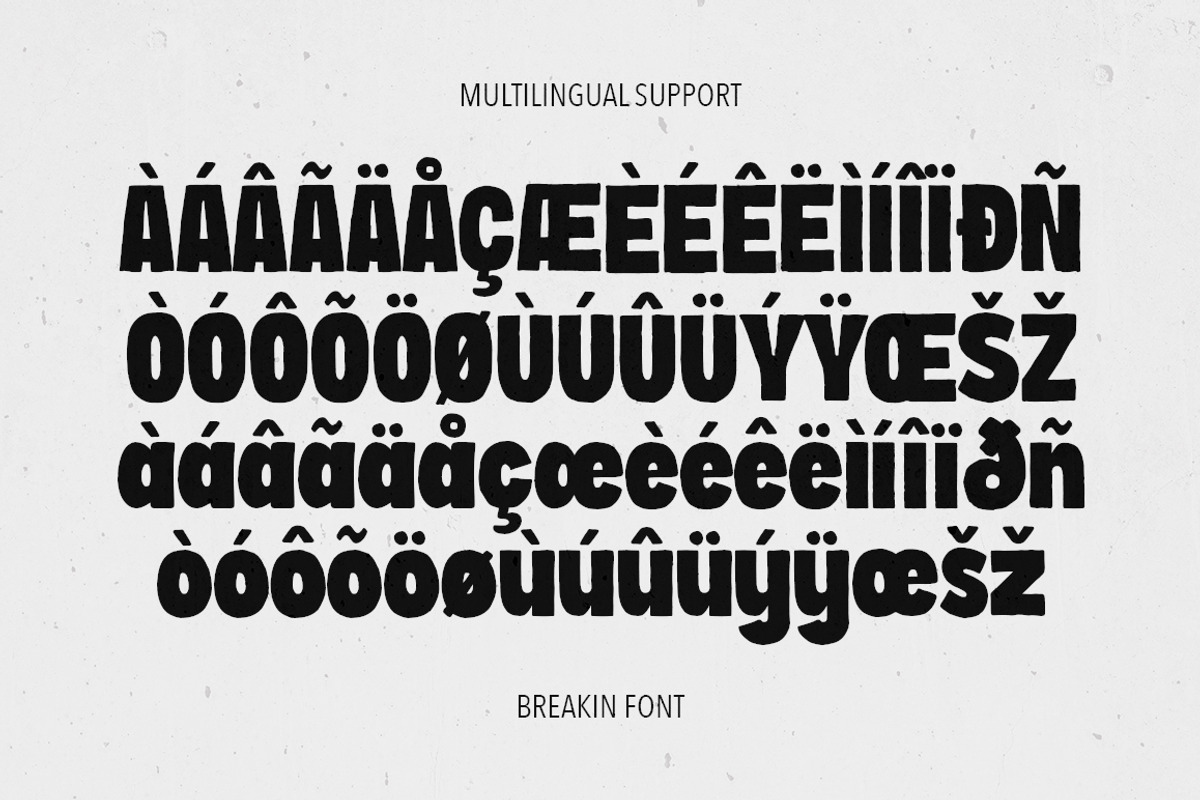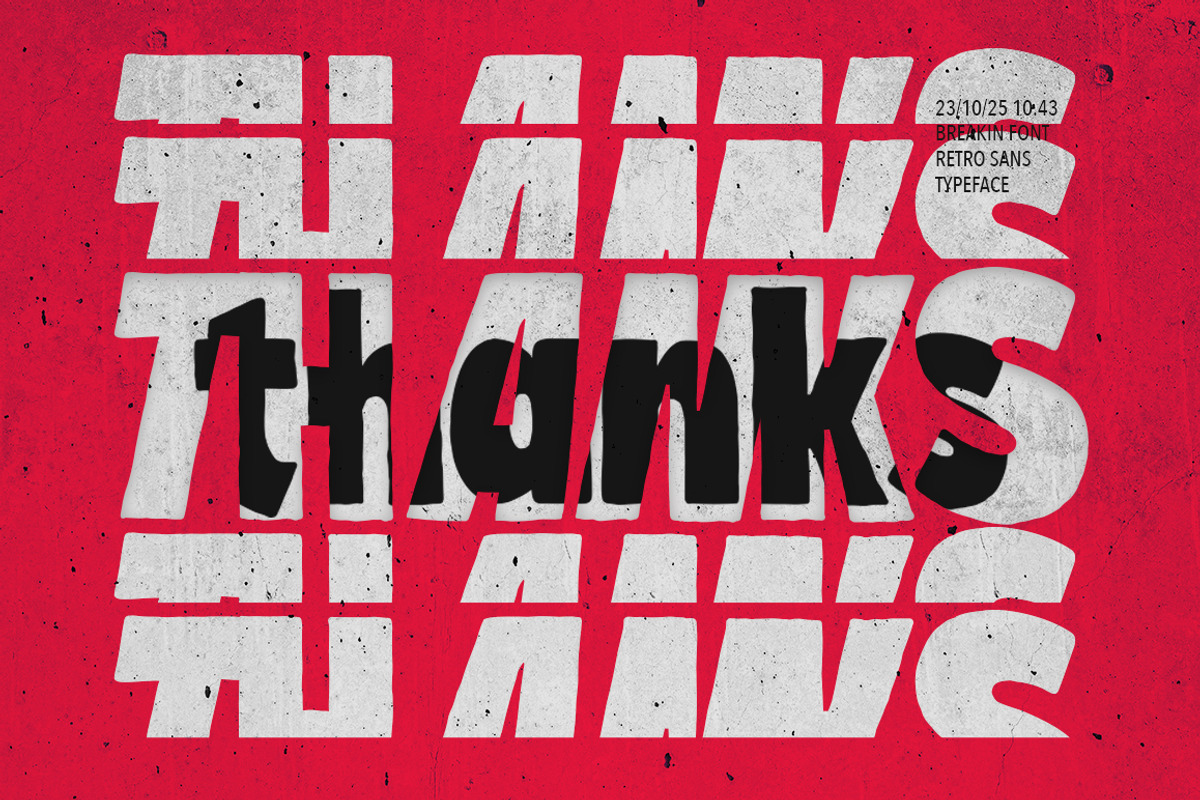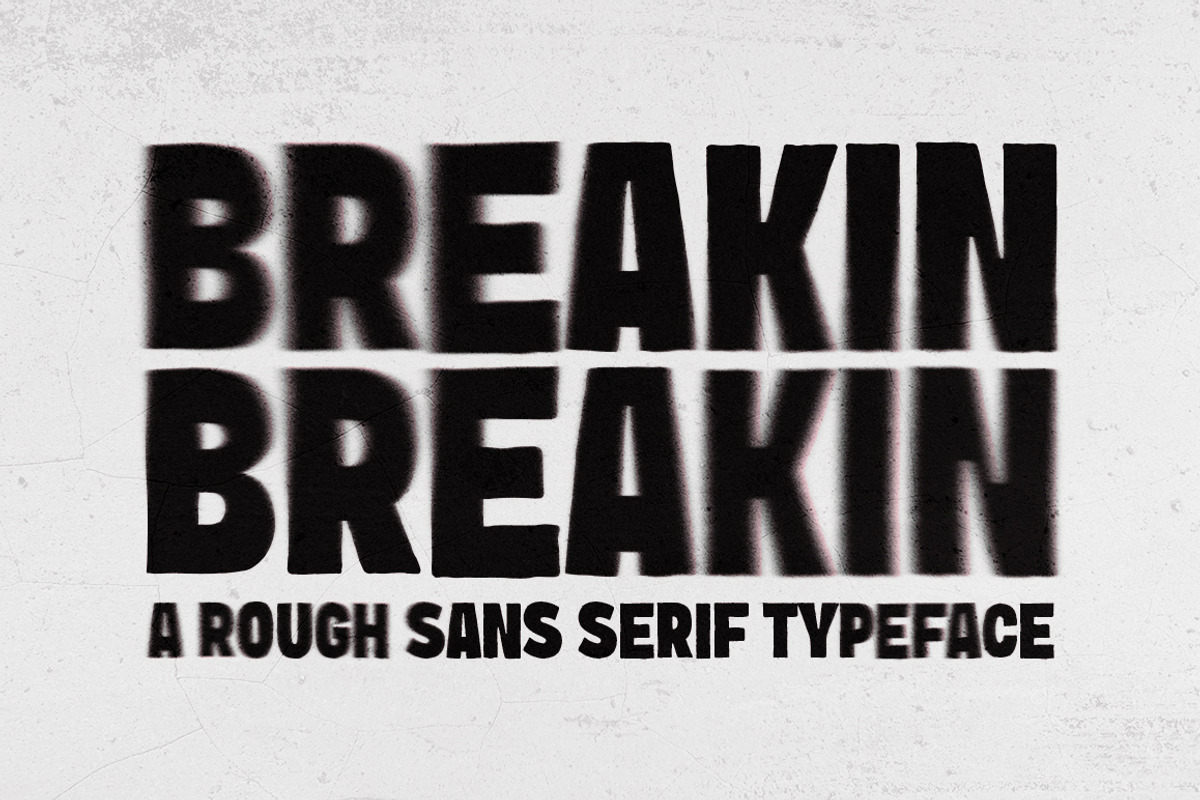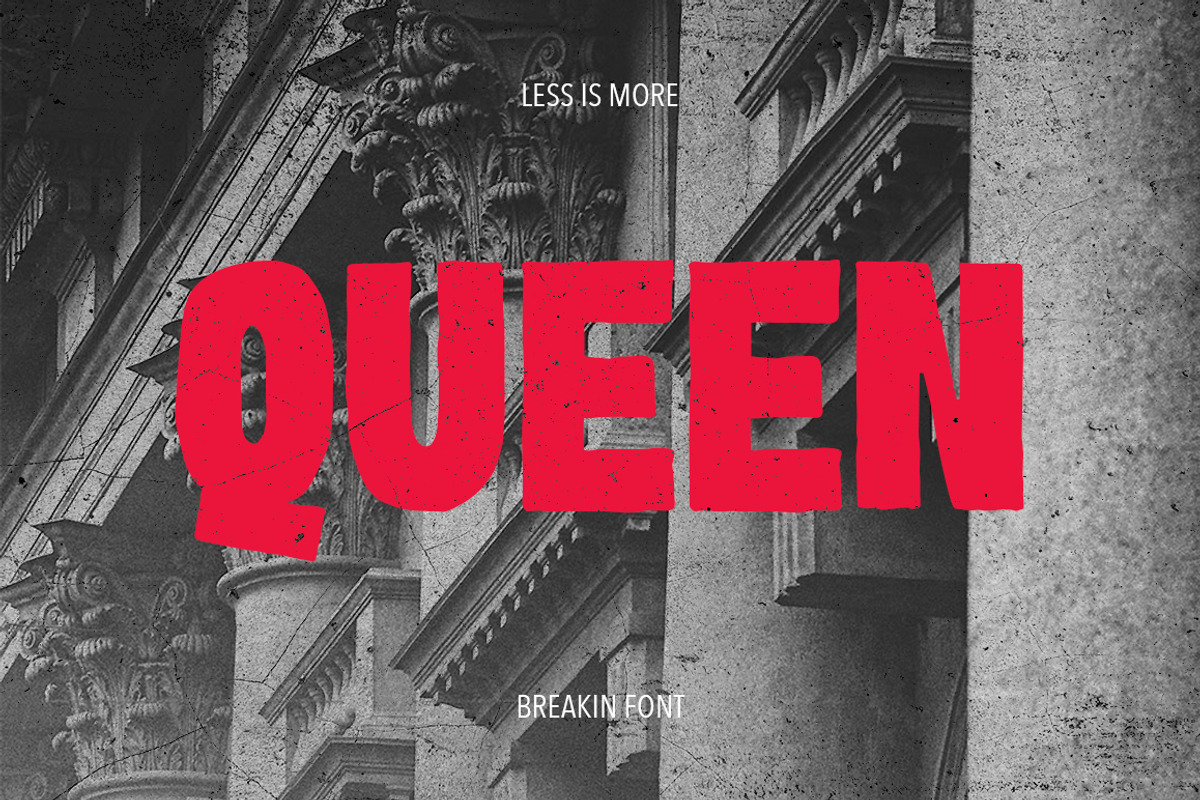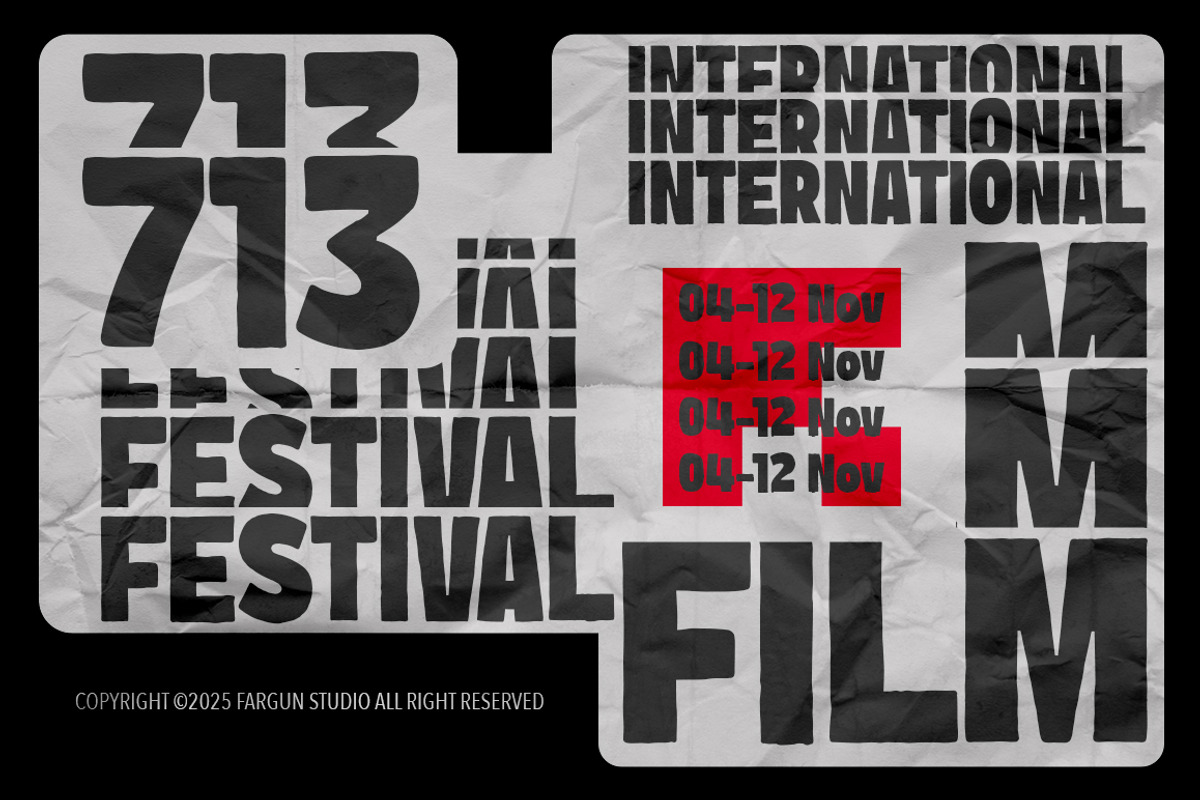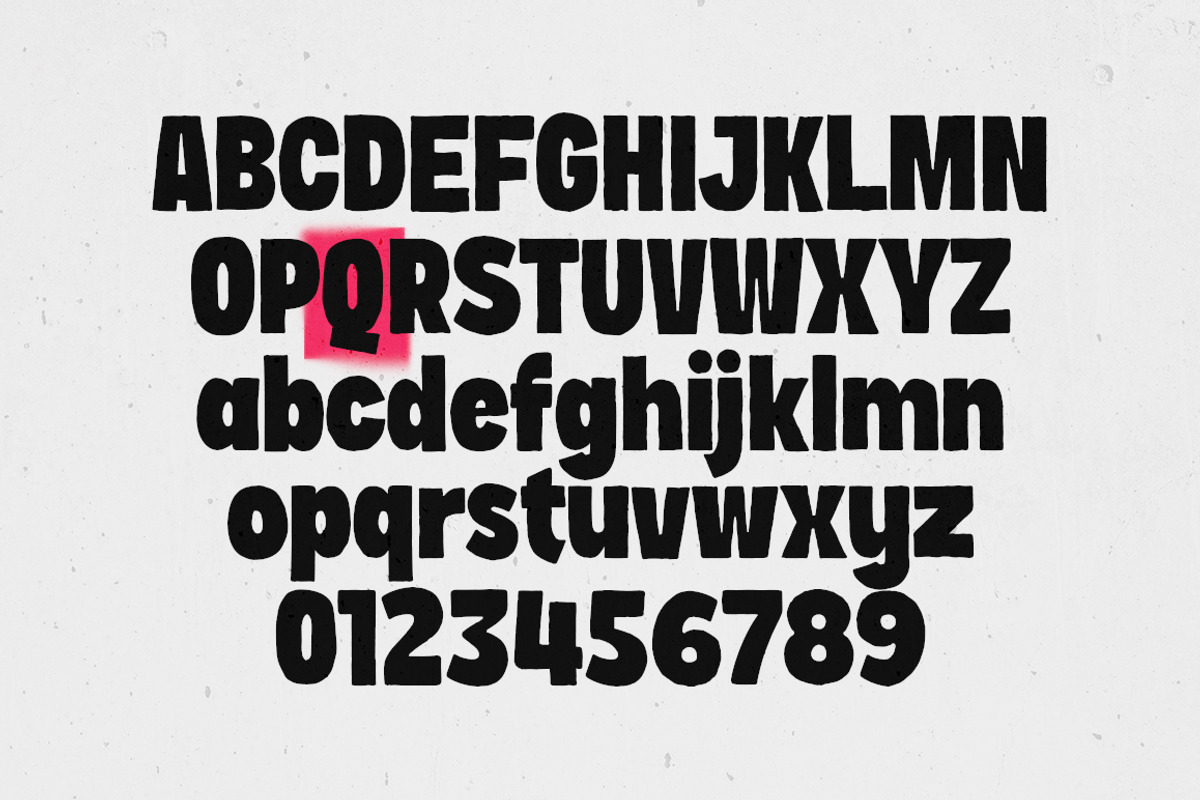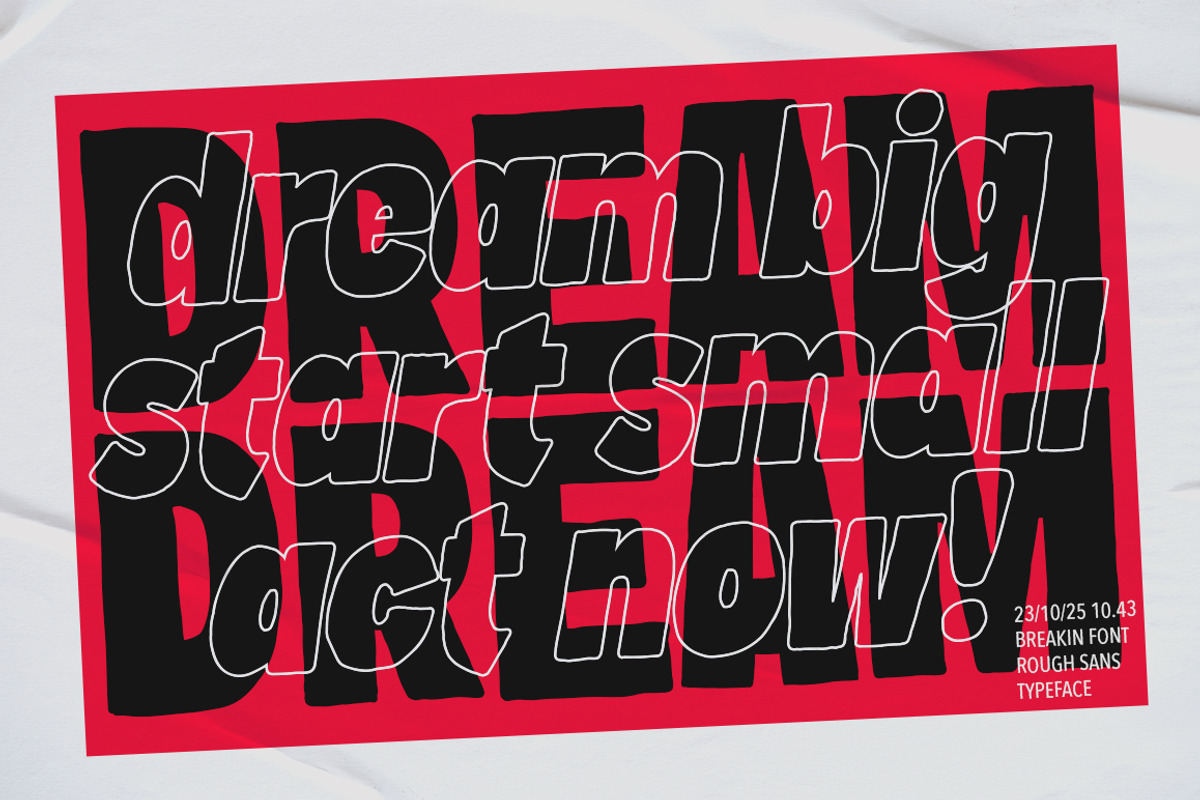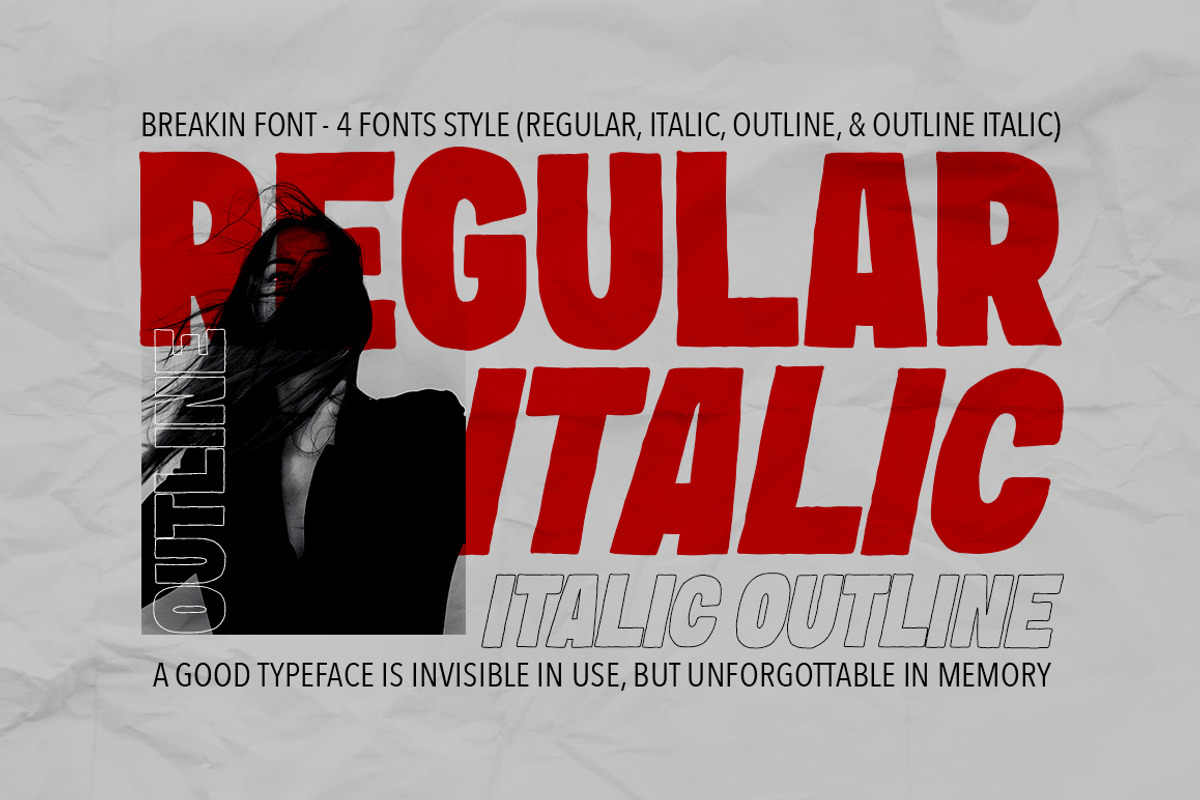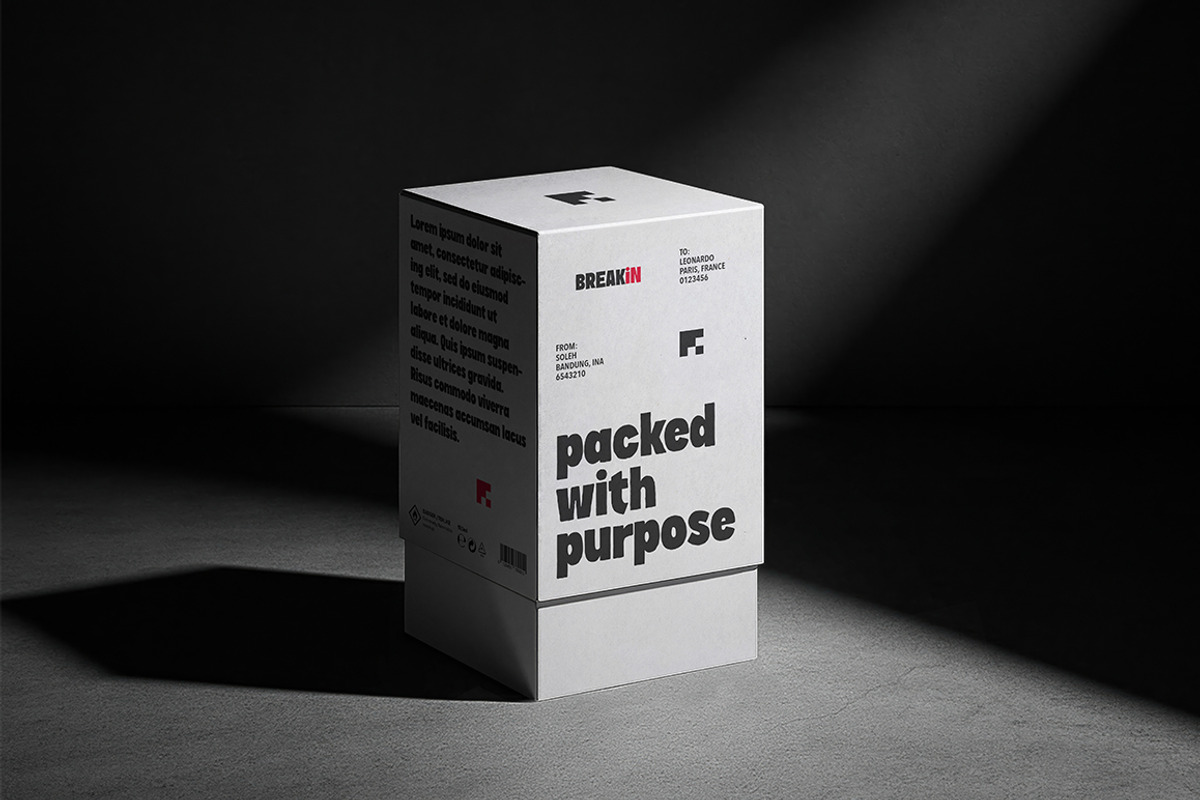
Breakin - Retro Sans Serif Typeface
Introducing Breakin! Breakin is a retro sans serif font with a bold, striking presence that instantly grabs attention. Hand-drawn with rough edges, it carries an authentic, gritty feel, perfect for designs that need a raw yet stylish touch. With its strong weight, Breakin is an excellent choice for headlines, posters, logos, packaging, and bold branding projects. To give you even more creative freedom, it also comes with italic and outline styles, making it versatile for different design moods. Blending vintage charm with modern readability, Breakin is crafted to help your work stand out with confidence and attitude.